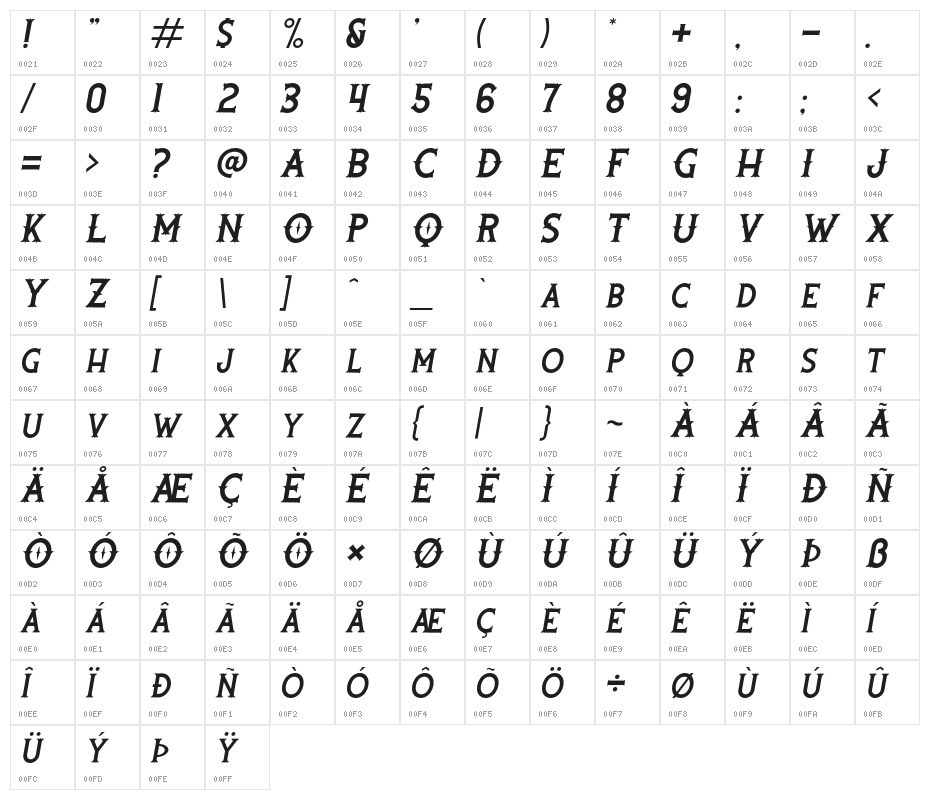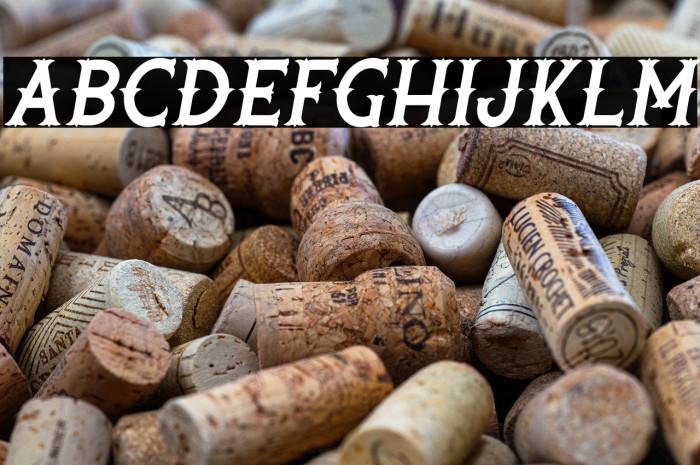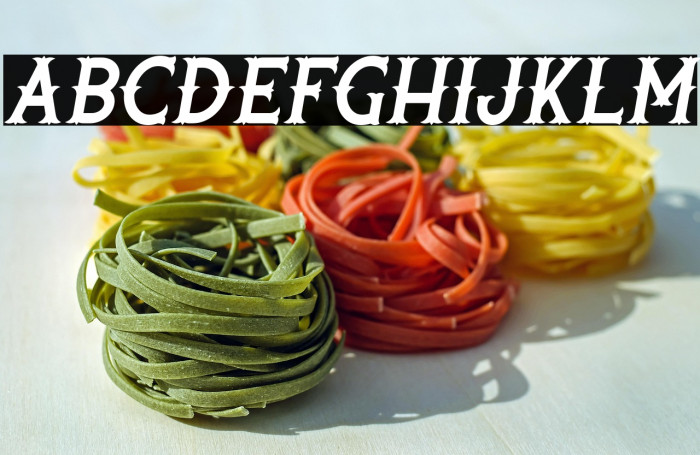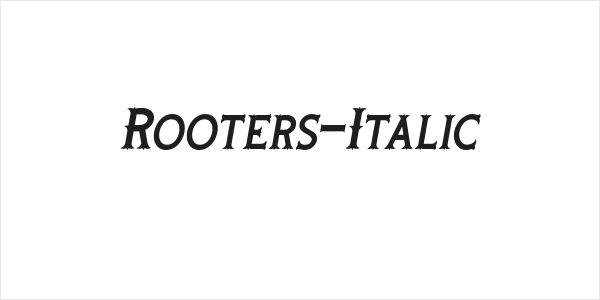
Rooters-Italic Font
Rooters-Italic Description
This font features a bold and dynamic style with a distinct italic slant, giving it a sense of movement and energy. The characters are adorned with unique, sharp serifs that add a touch of elegance and sophistication. The overall design is both modern and classic, making it versatile for various applications. The numbers and special characters maintain the same boldness and flair, ensuring consistency across all elements. The font's strong presence makes it ideal for impactful designs.
| Proposed Projects | Ideal for branding, headlines, posters, and any design requiring a strong, elegant presence. |